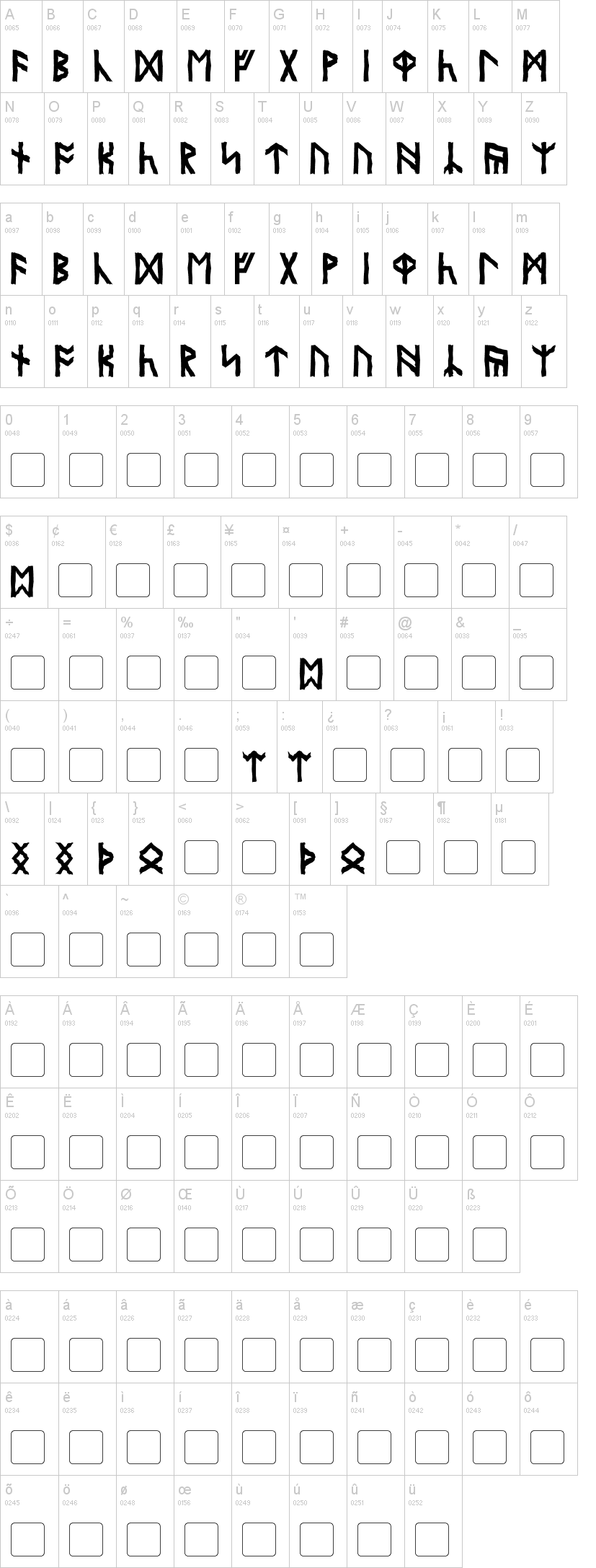
Шрифт Garriott
This runic font is based on the copy-protection lettering from the legendary "Ultima" game series from the sorely-missed Origin Gaming Systems company. Includes all canonical runes.